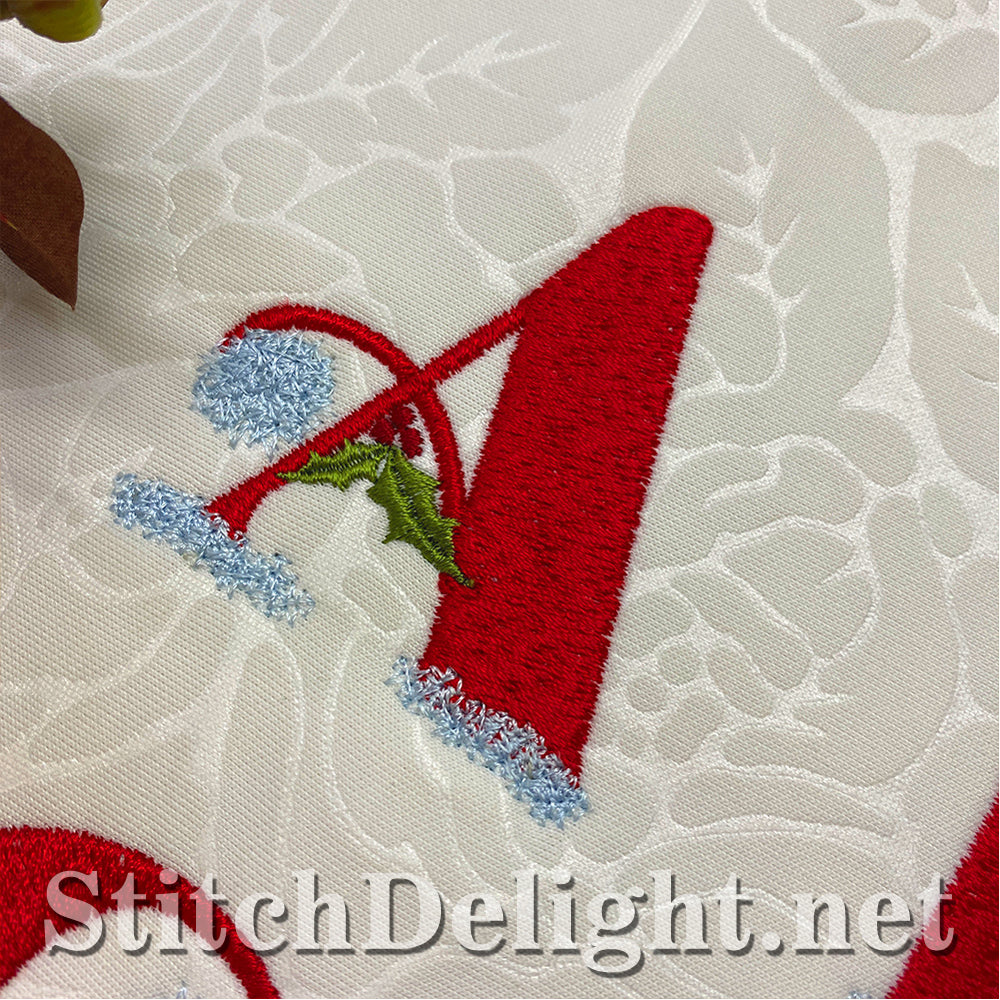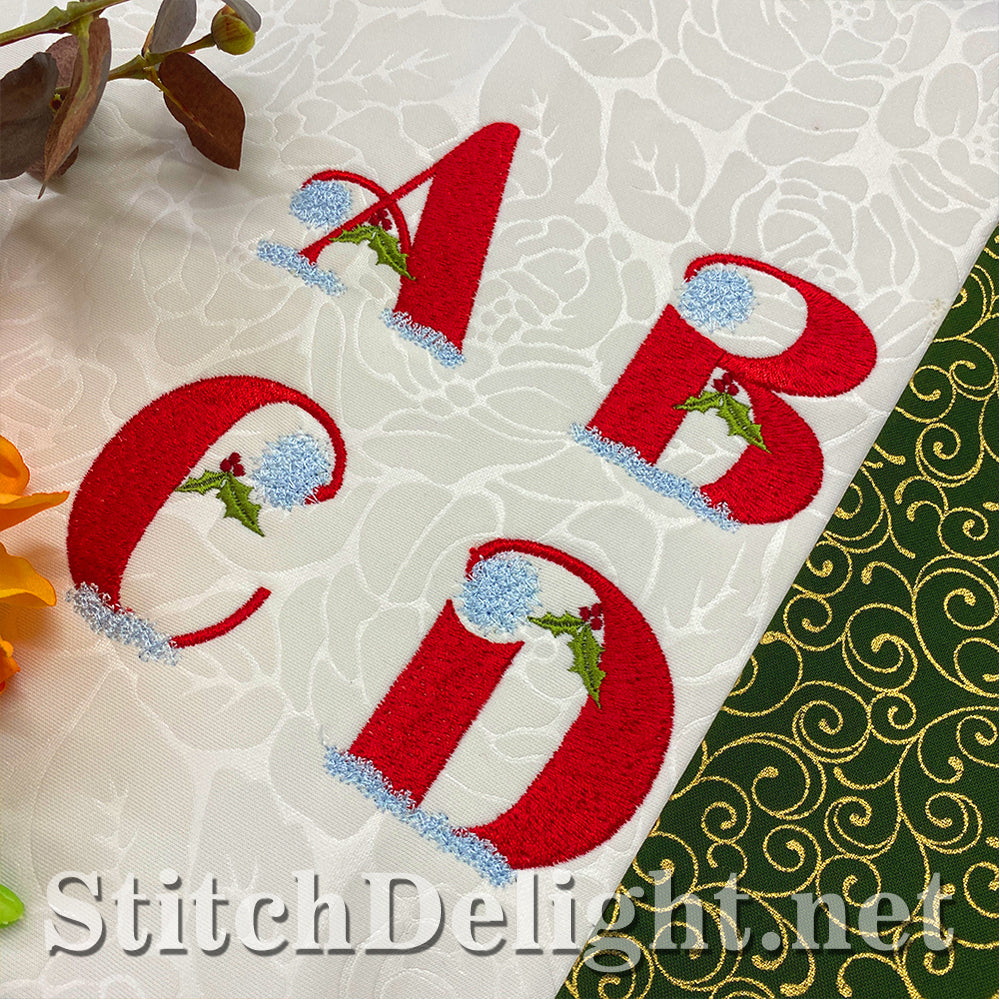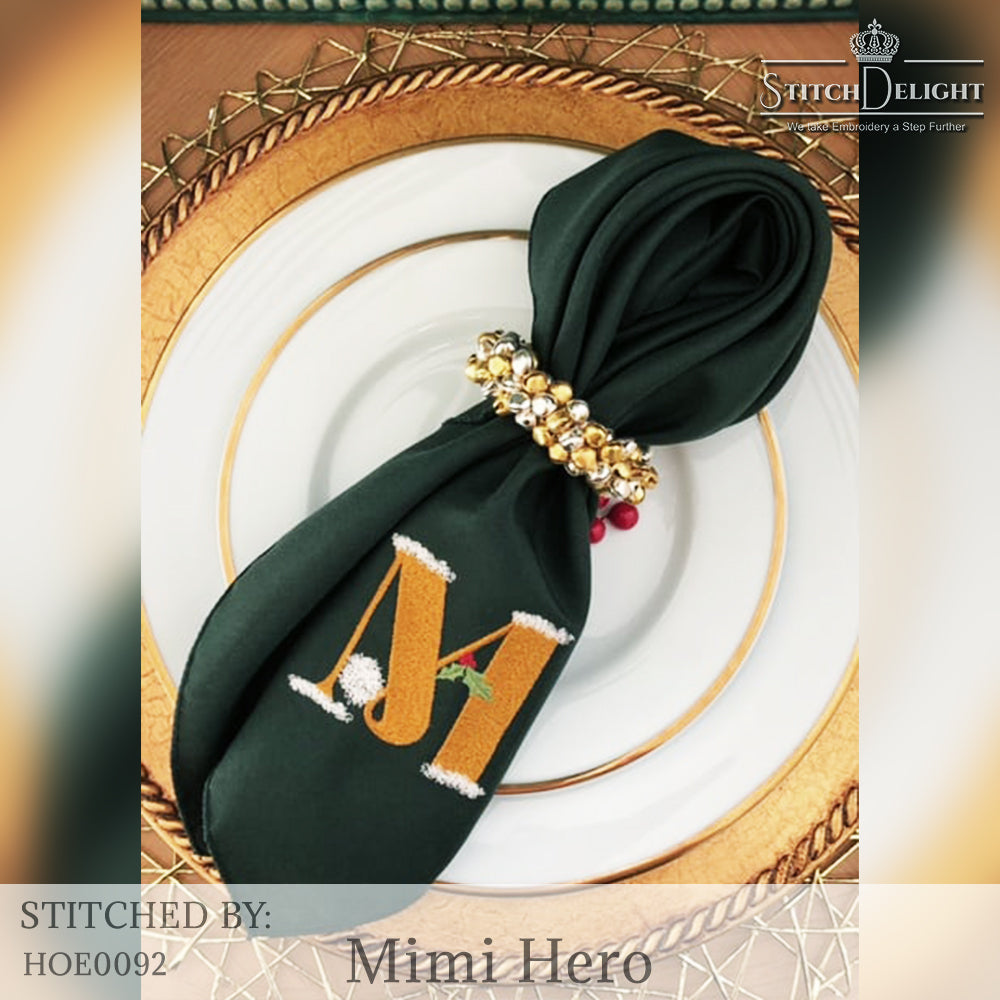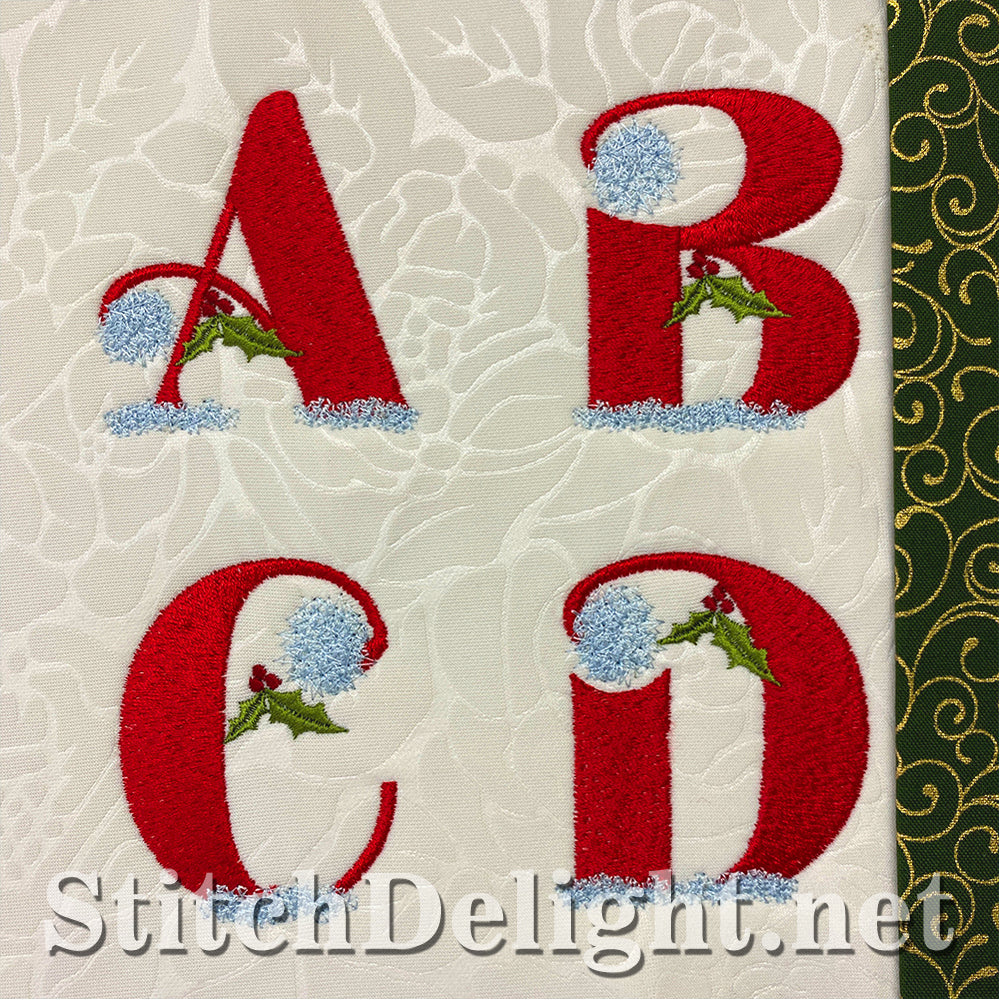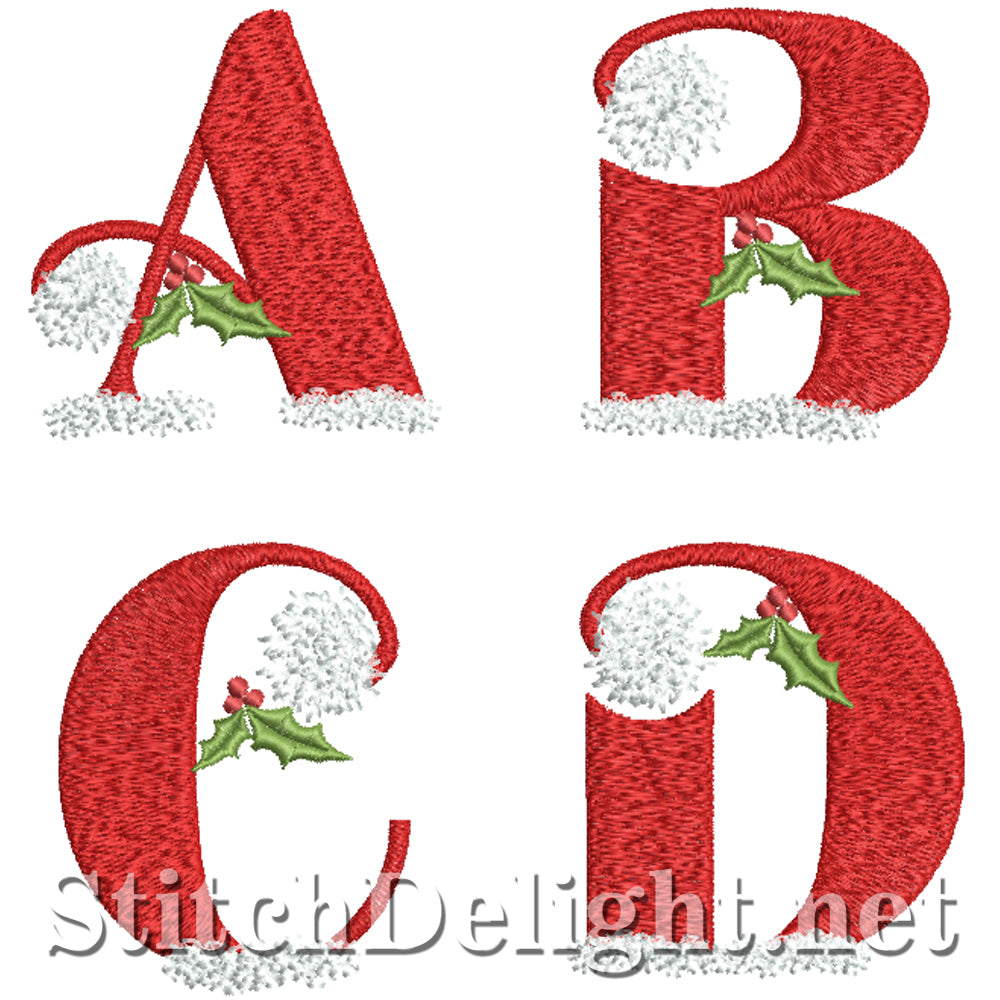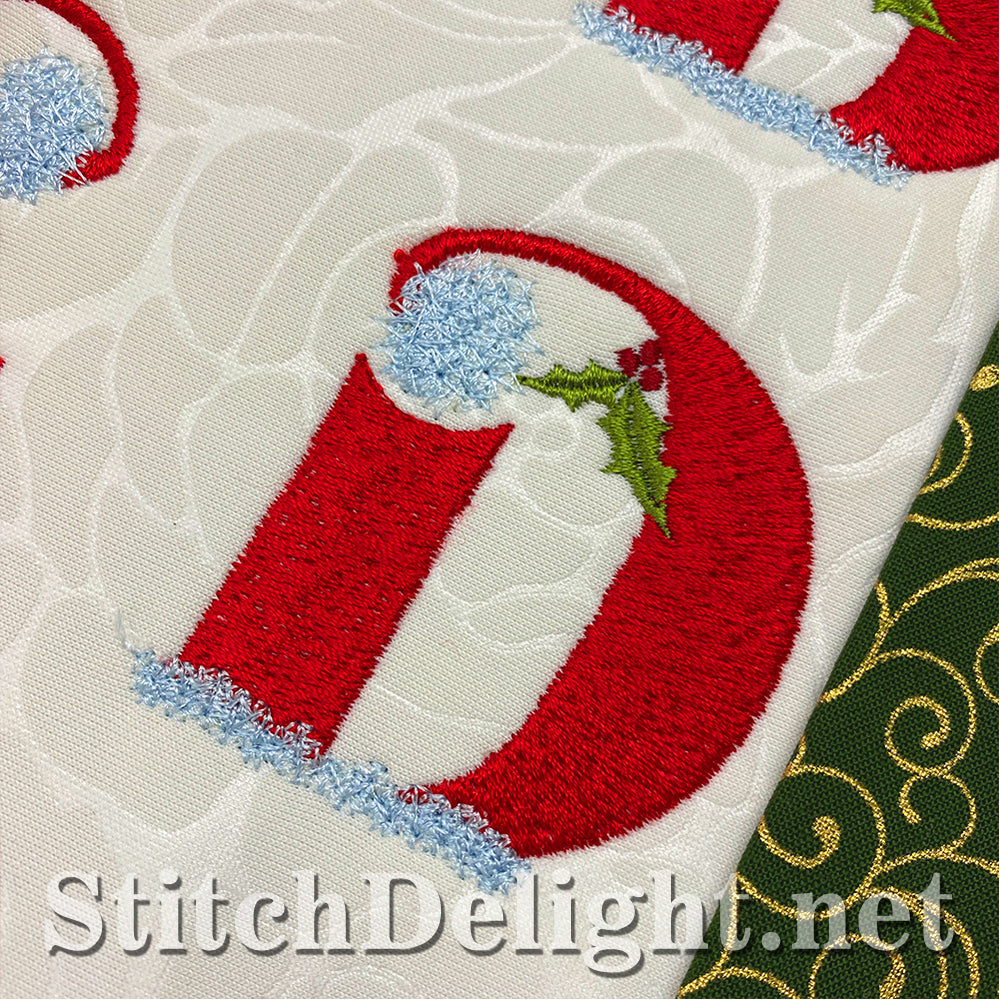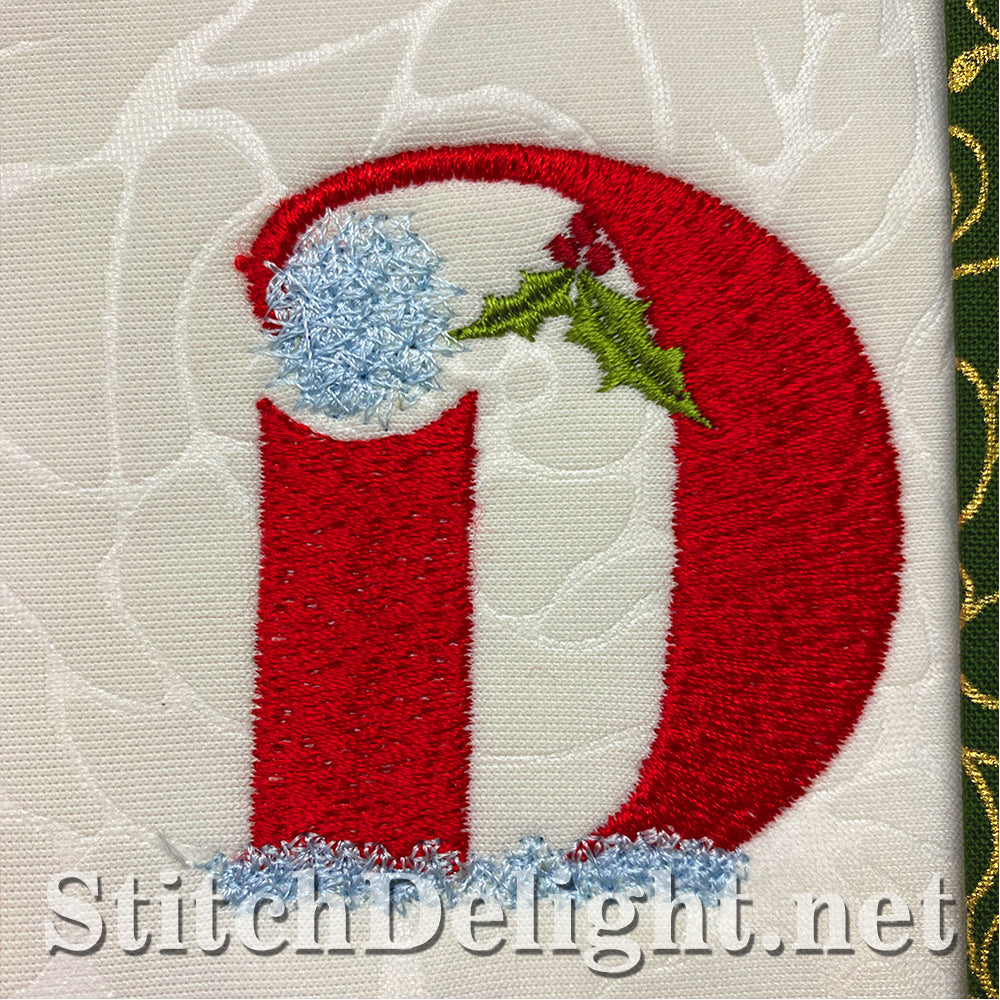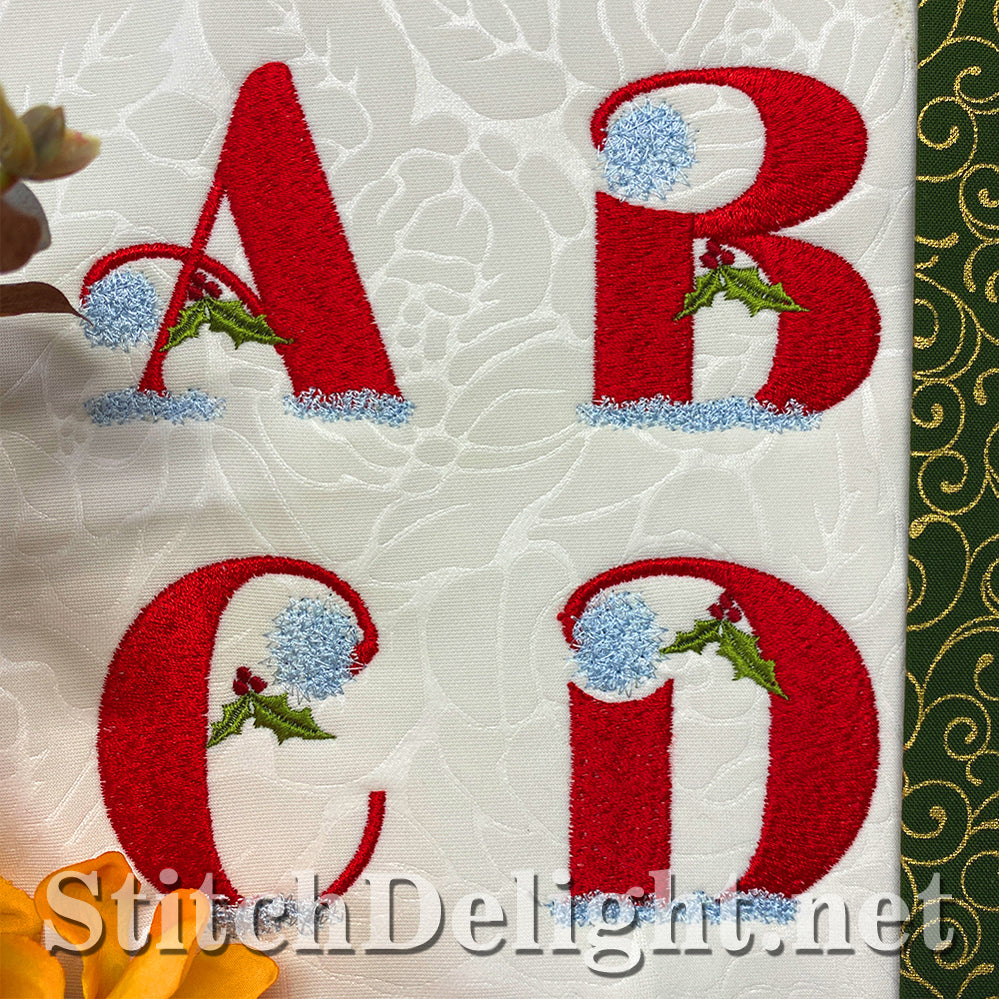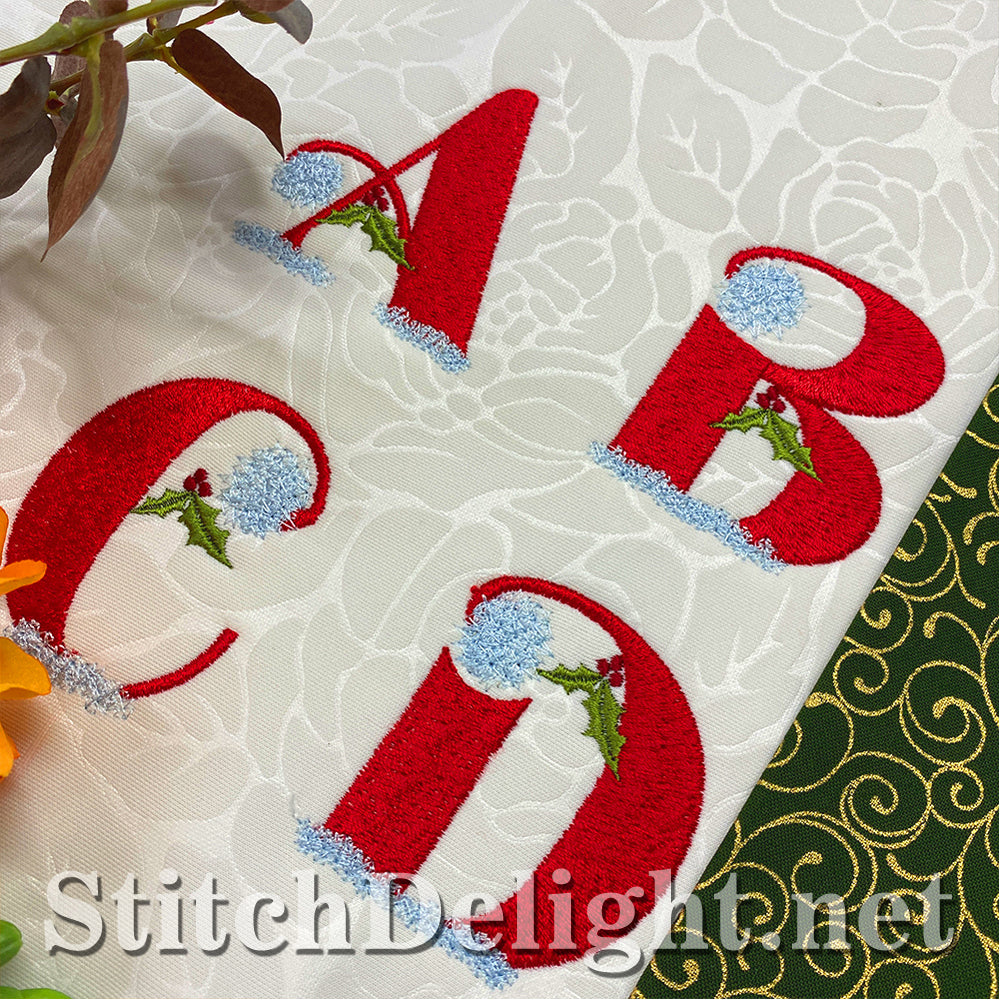
HOE0092 Jolly Festive Font
This is the complete Jolly Festive Font including the extra special characters. Made to fit the 4x4 this adorable font has an average height of just 2.2inch making it perfect to stitch on Christmas stockings and gifts.